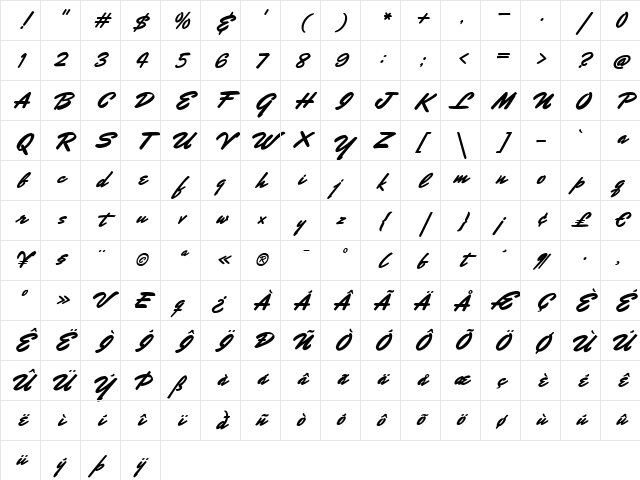
Mr Stalwart Regular
Foundry: Alejandro Paul
Design Context for Mr Stalwart
Mr Stalwart is a composed and adaptable typeface that performs quietly and consistently across a wide range of design contexts.
Pro Tip: Use Mr Stalwart in both headline and body roles to test its range before committing to a single application.